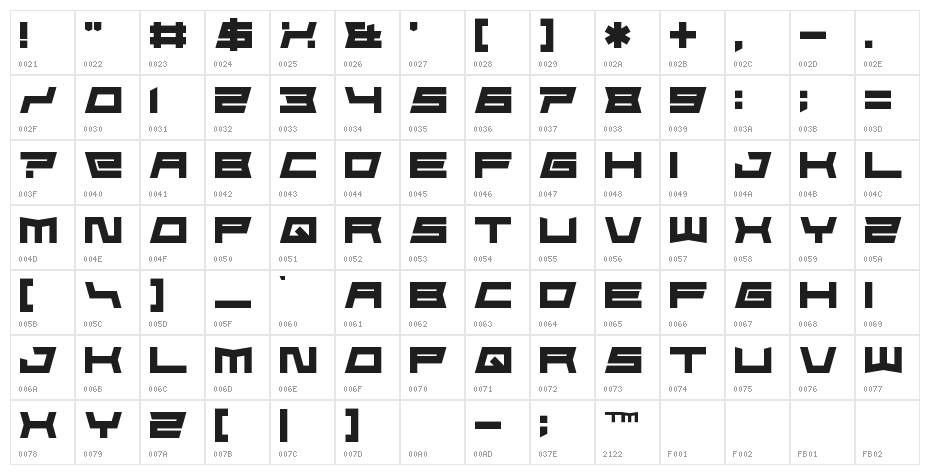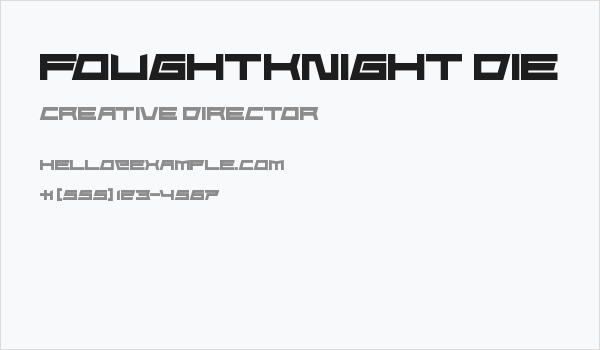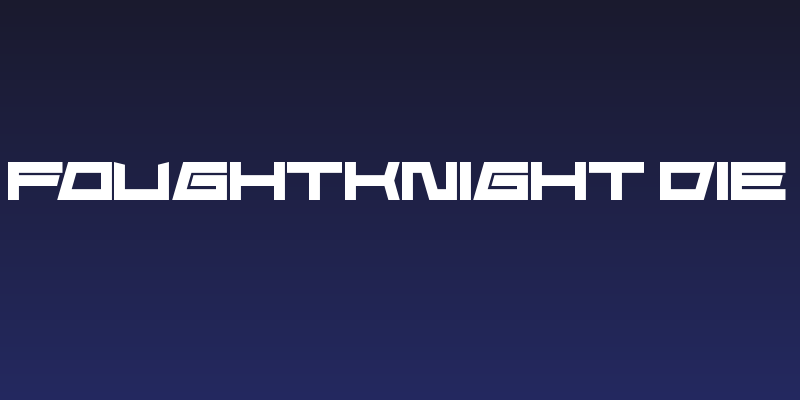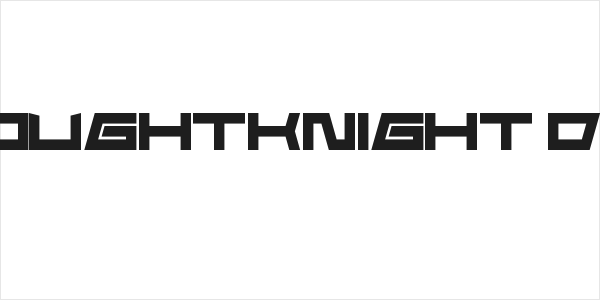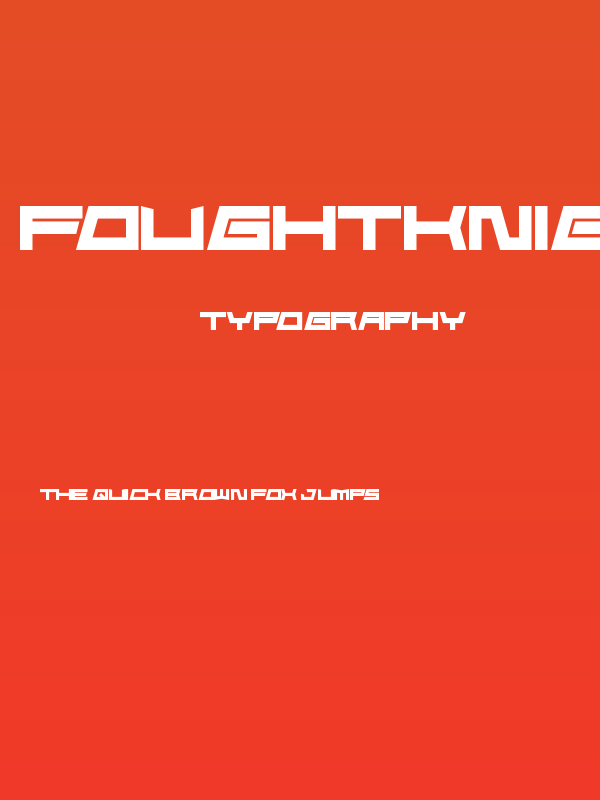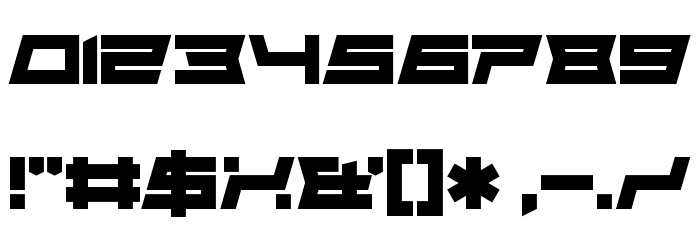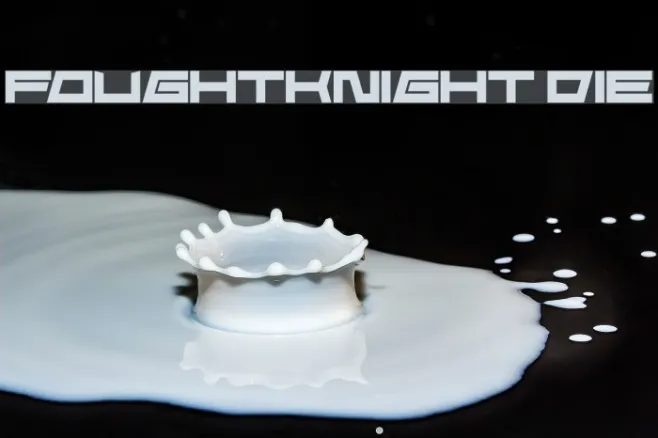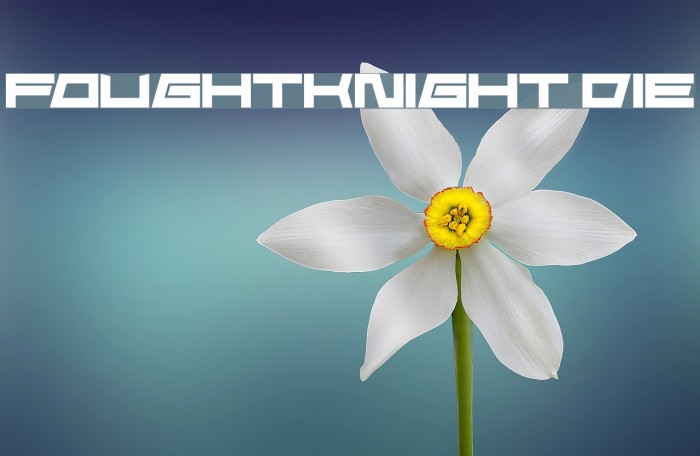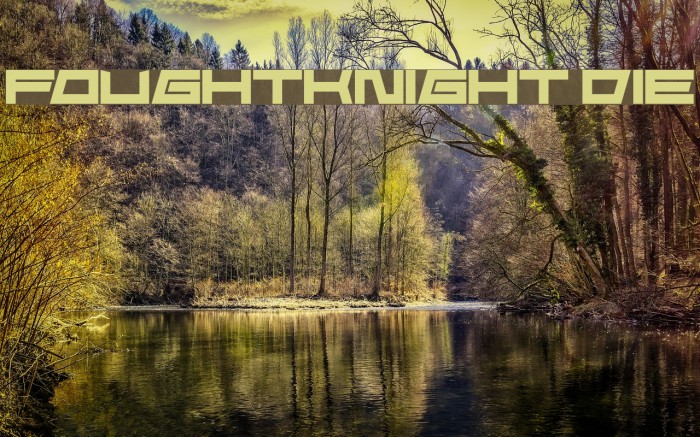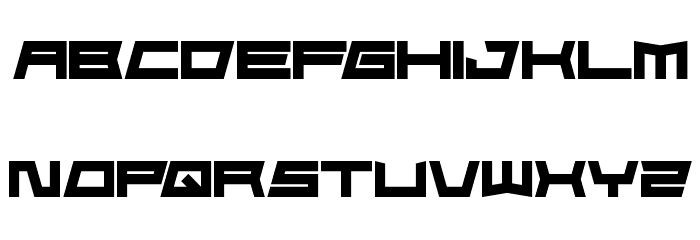
FoughtKnight Die Font
FoughtKnight Die Description
This font features a bold, angular design with a futuristic and geometric aesthetic. The characters are constructed with sharp edges and a blocky appearance, giving it a strong and assertive presence. The uppercase letters are particularly striking, with unique cuts and angles that create a dynamic visual effect. The numbers and special characters maintain the same bold style, ensuring consistency across all elements. This font's distinct style makes it ideal for projects that require a modern and edgy look.
| Proposed Projects | Ideal for video game titles, sci-fi movie posters, tech branding, and futuristic event flyers. |